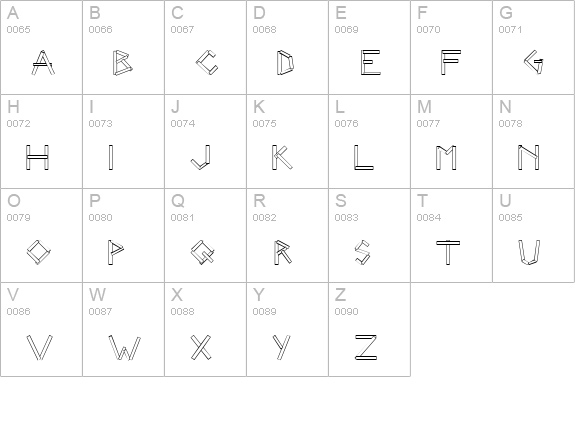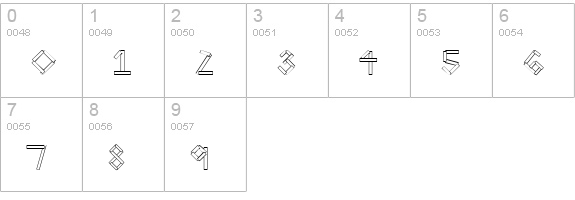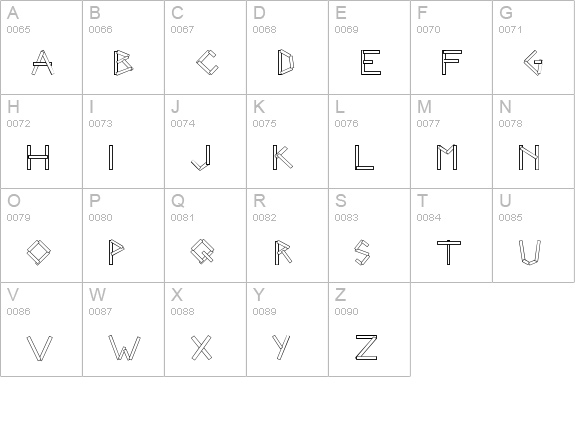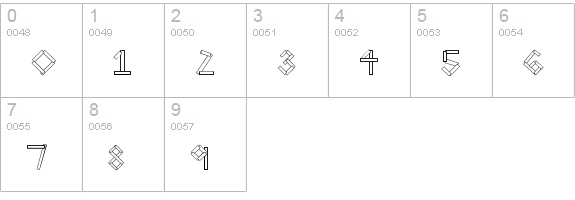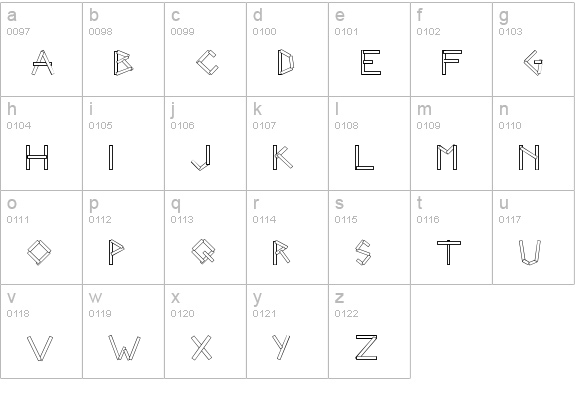
CK Strips Font Details
Introducing CK Strips font, a modern and stylish typeface that is perfect for adding a touch of creativity to your design projects. CK Strips features sleek lines and a contemporary aesthetic, making it ideal for logos, branding, posters, and more. The best part? CK Strips font is completely free to download at FontsMarket.com. Whether you're a designer looking to experiment with a new font or a hobbyist seeking to enhance your creations, CK Strips is the perfect choice. With its versatility and unique design, this font is sure to make your projects stand out. Download CK Strips font today and unleash your creativity with this eye-catching and freely available typeface.